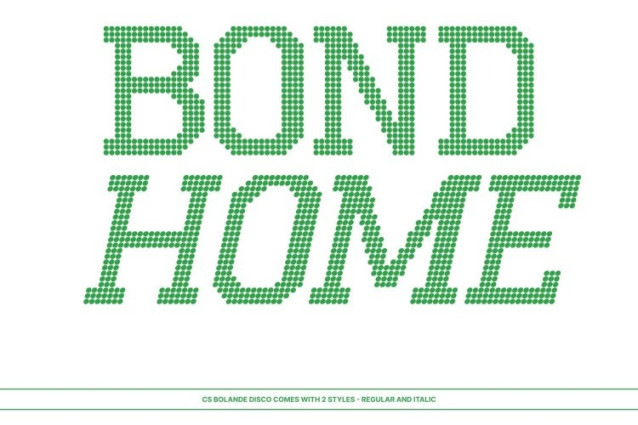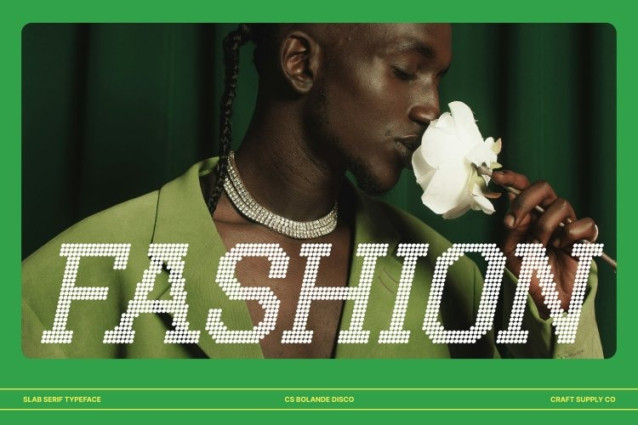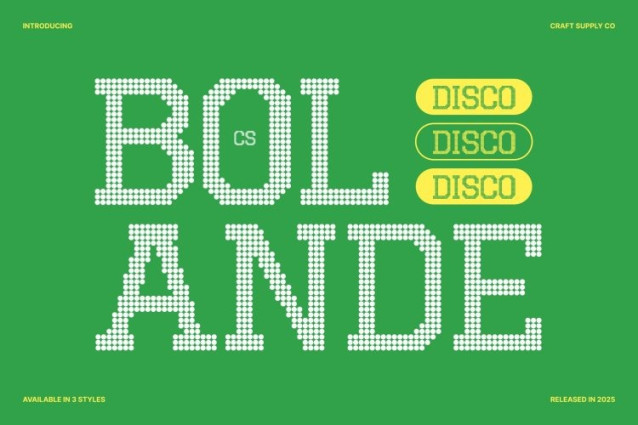
CS Bolande Disco Font
CS Bolande Disco Font This is a sharp slab serif typeface built from bold, block-like forms designed to create powerful and commanding visuals. Clean, precise lines meet sturdy letterforms, delivering confidence and authority enhanced by a subtle disco-era attitude. Every curve and edge is carefully shaped to maintain clarity, balance, and rhythmic presence especially in large-scale compositions.
Sharp Structure with Dynamic Readability
Engineered for strength and legibility, this font stands out through geometric precision and defined proportions. Its solid slab serifs anchor each character, allowing the typeface to hold its weight beautifully in posters, headlines, and branding materials. The consistent rhythm of its forms reflects the bold visual language of the late 70s and early 80s, enhancing readability while adding energetic appeal.
Perfect for Posters, Branding, and High-Impact Visuals
From striking advertisements to modern logo designs, delivers a cool, confident presence with a retro-modern twist. Its sharp linear structure captures attention instantly, while the clean slab serif construction keeps the design timeless and versatile ideal for projects that combine professionalism with expressive energy.
Versatile Expression with Timeless Disco Strength
Bridging classic slab serif reliability and contemporary design clarity, offers a bold typographic voice rooted in strength and rhythm. Use it to craft confident statements across branding, editorial layouts, packaging, and digital platforms where stability, sophistication, and a touch of disco-era power are essential.